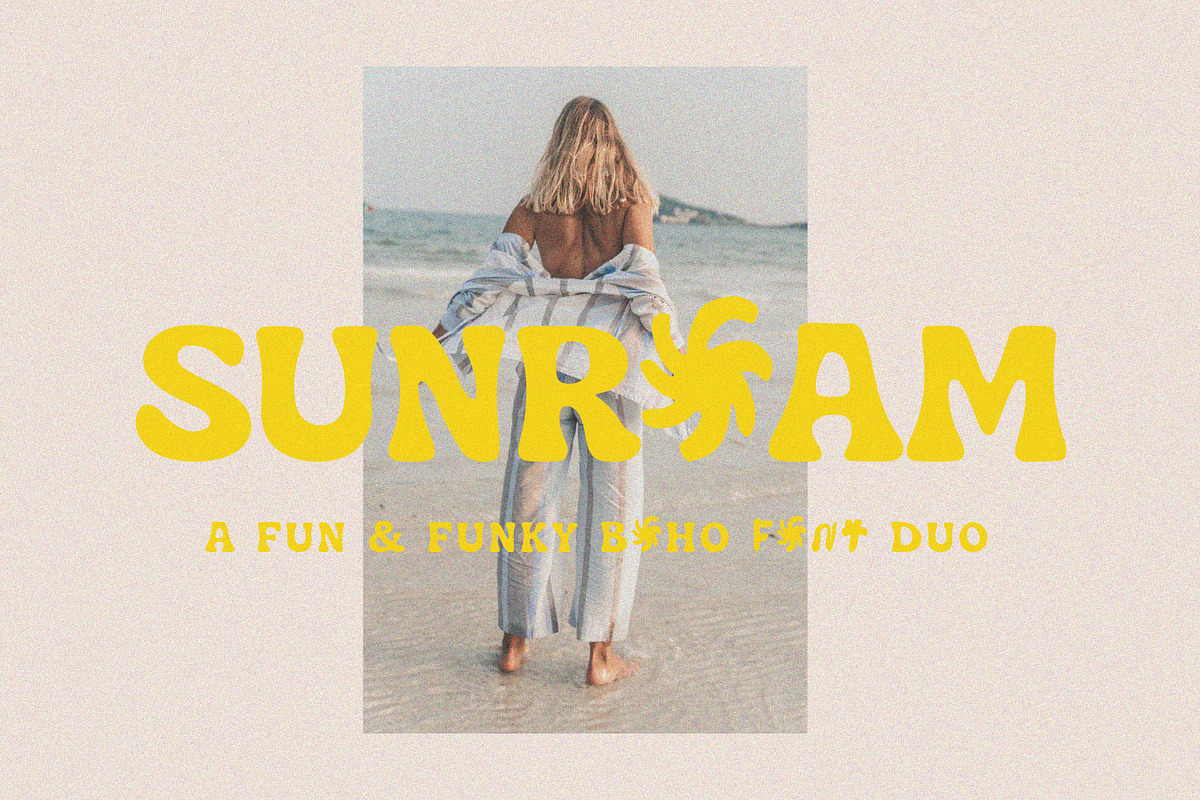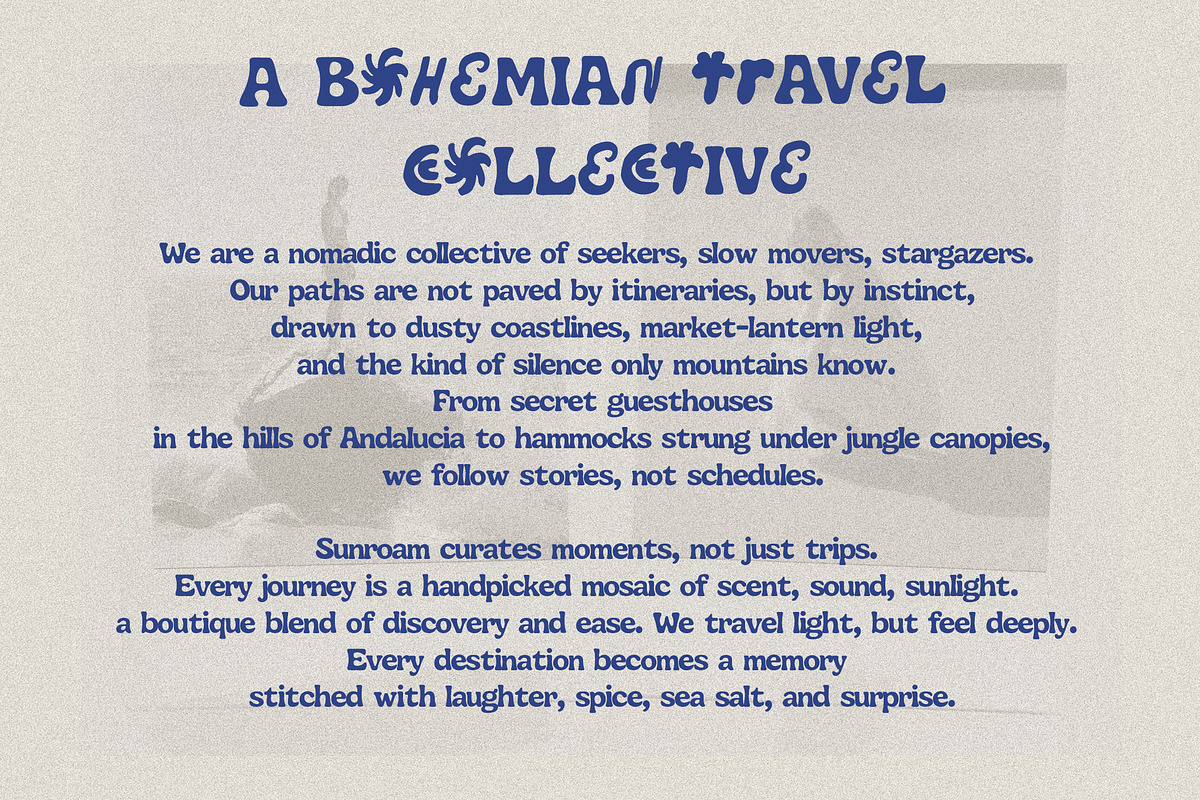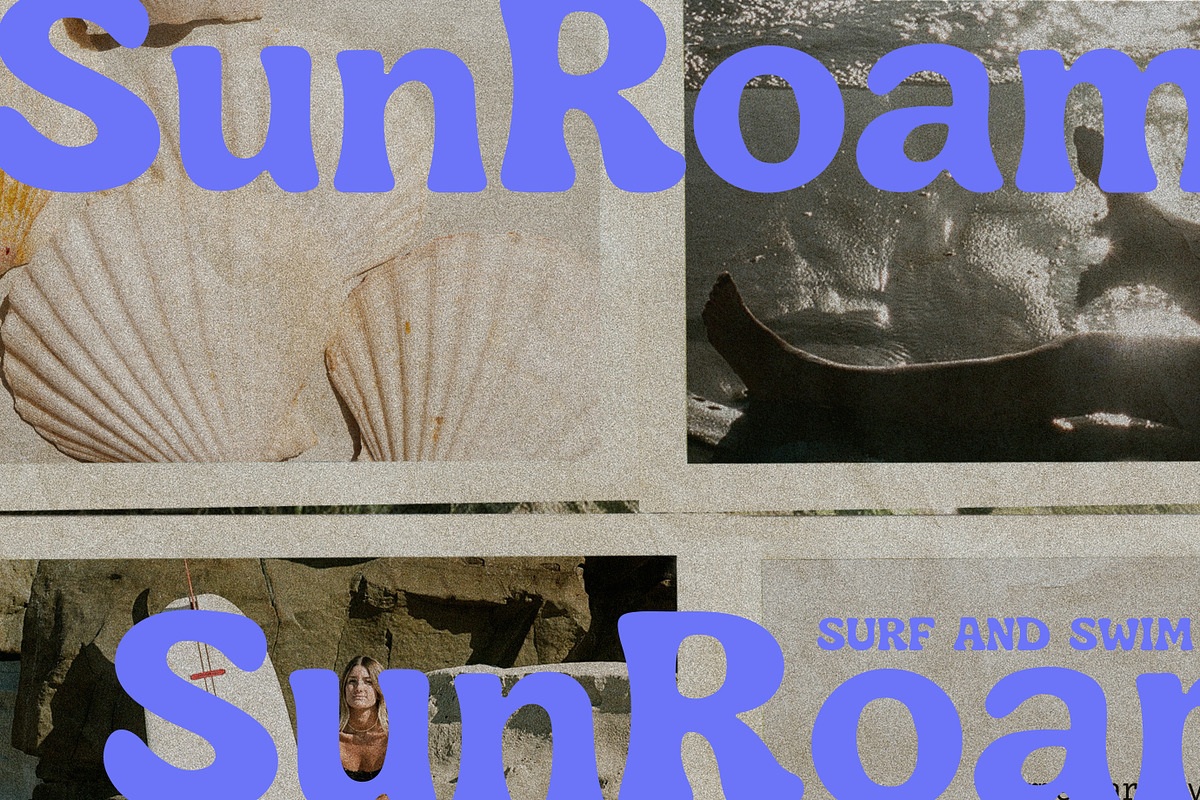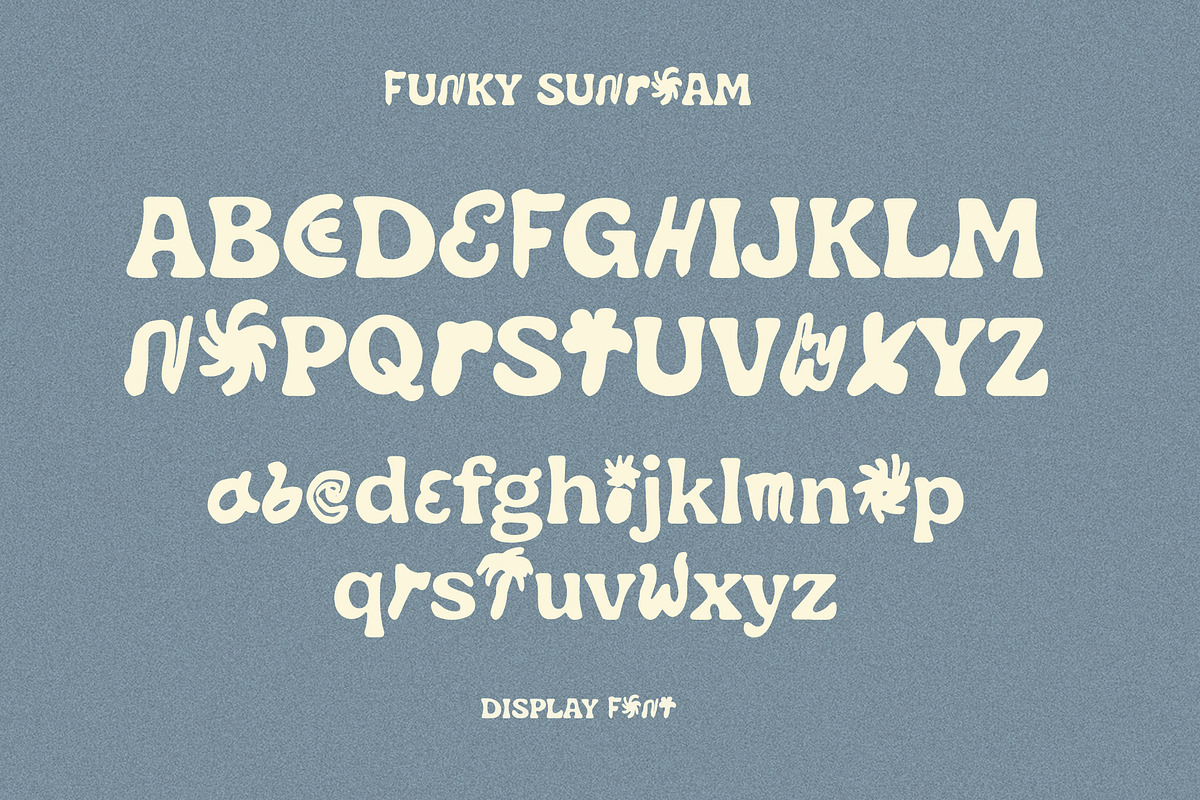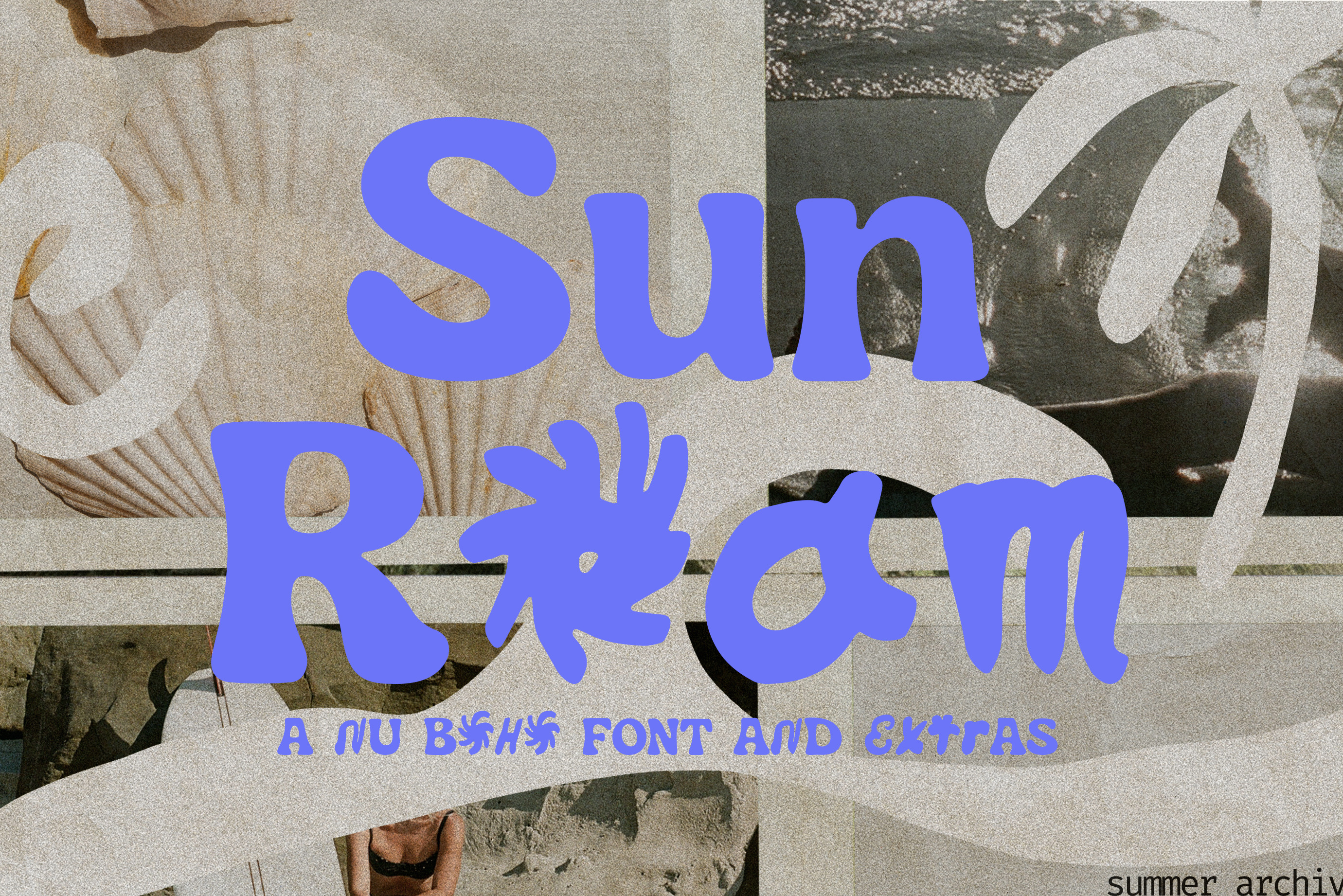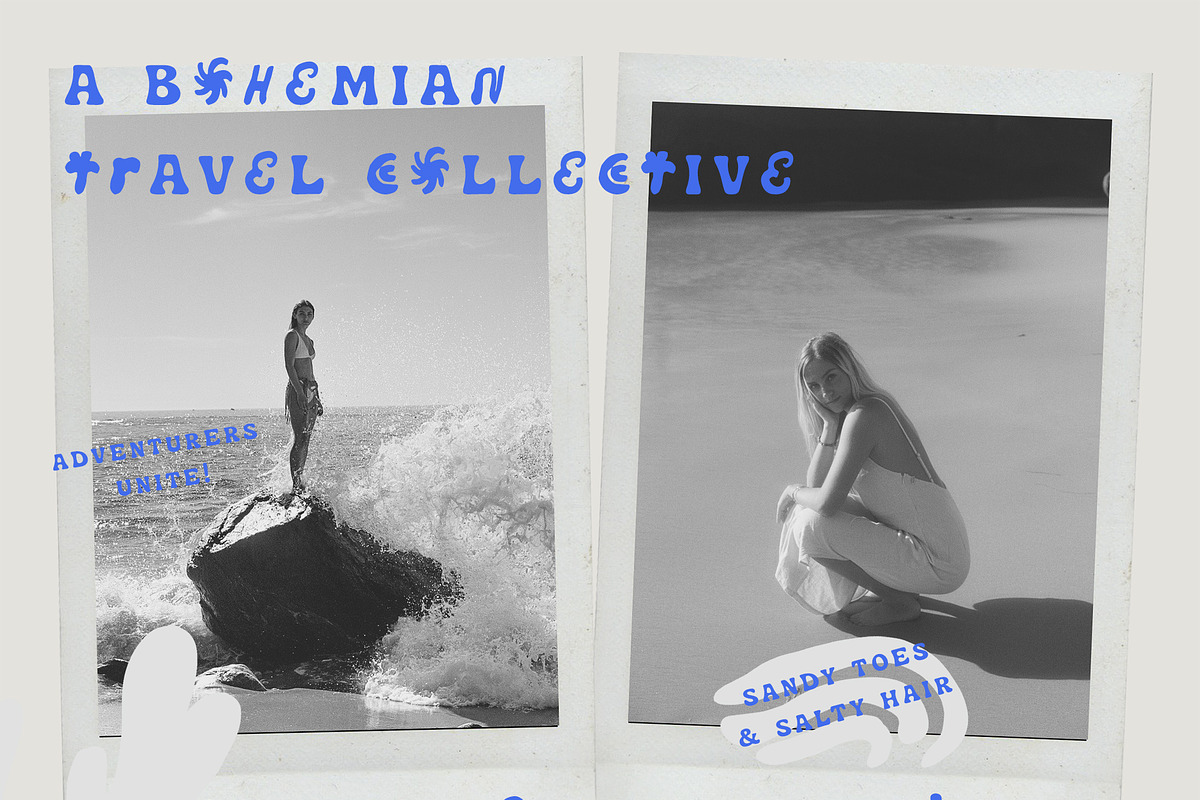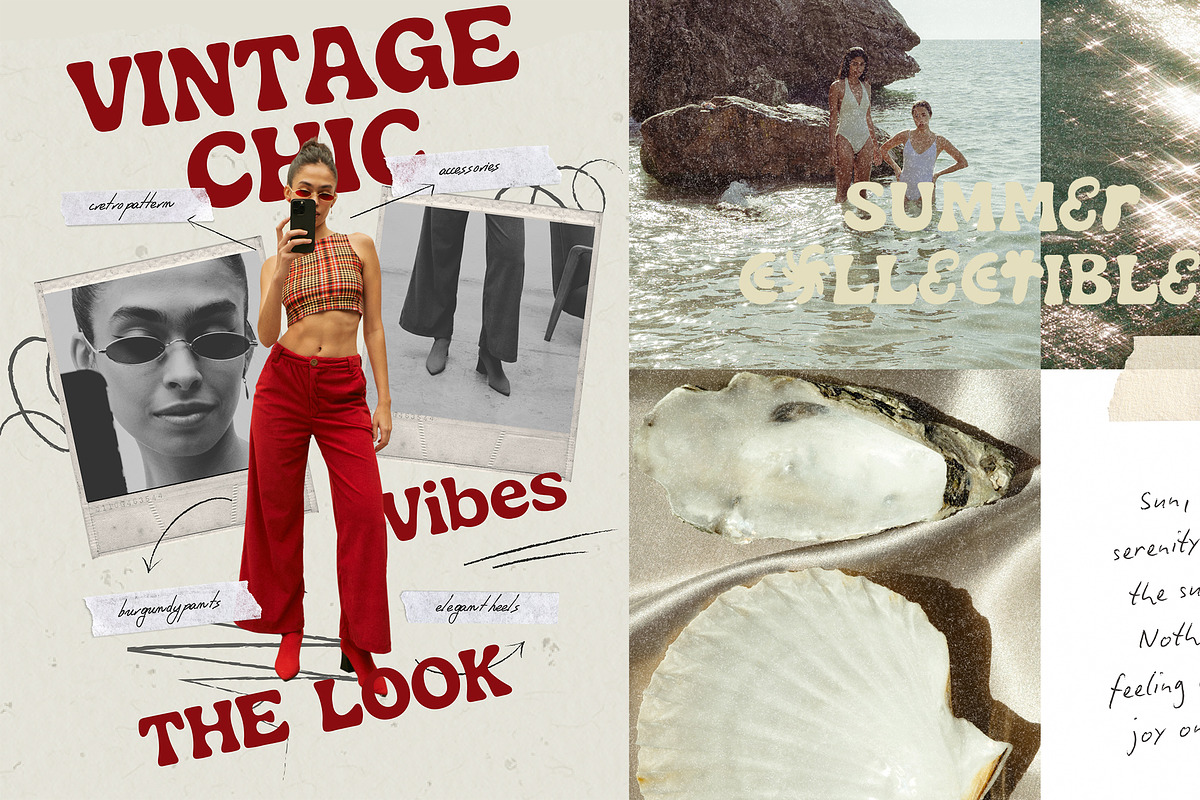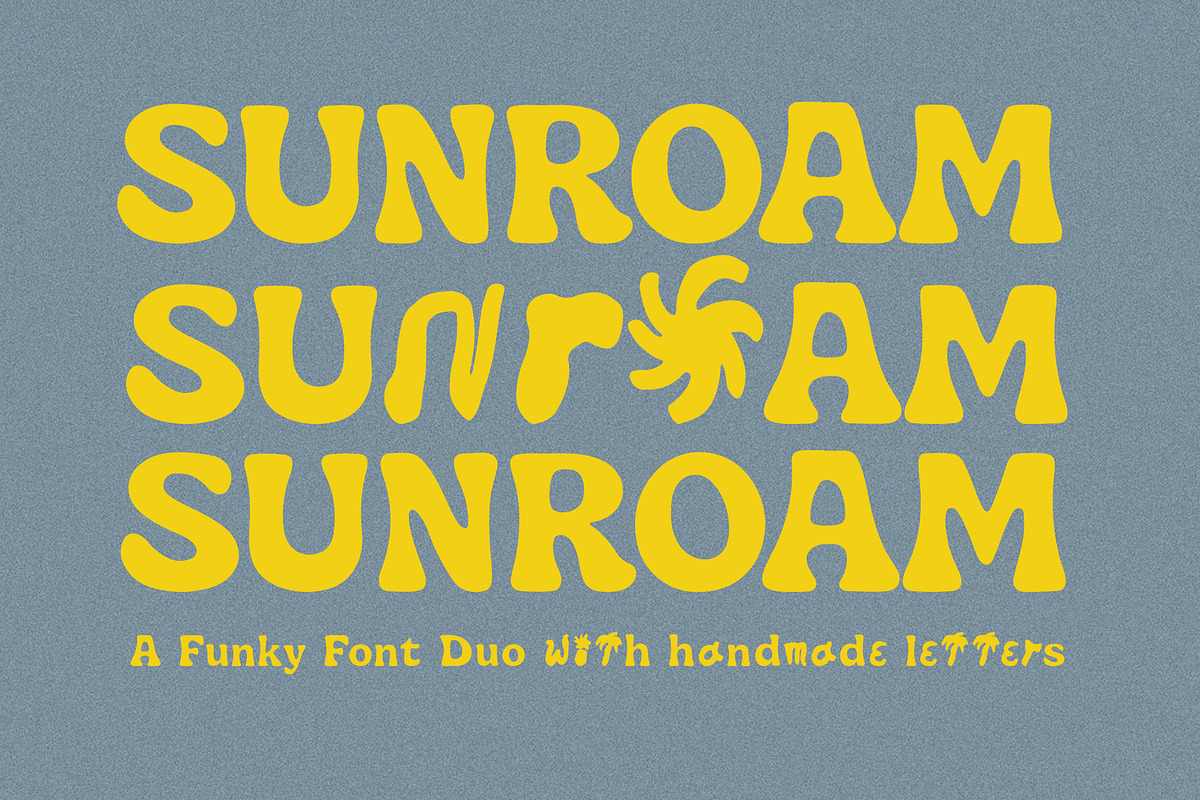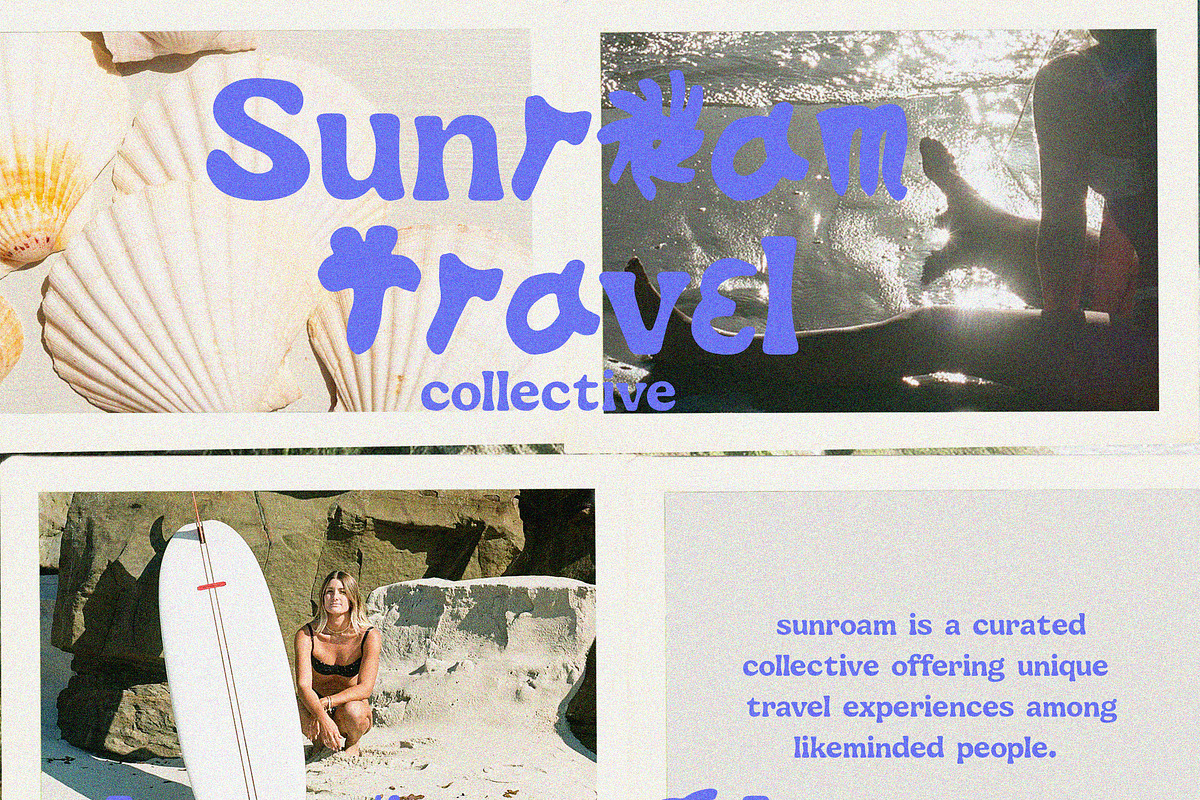
Sunroam Bold Retro Symbols Font Duo
Meet Sunroam — a bold, sun-drenched typeface made for dreamers, drifters, and design rebels. Inspired by retro surf culture, vintage road signs, and the untamed spirit of the coast, this font duo was born to roam.
Two lovely fonts are included to sprinkle that extra charm onto your brands, packaging and designs: Sunroam Regular is a bold, retro sans with clean edges. Funky Sunroam is the sibling. Letters dance with boho-inspired symbols and unexpected twists. Experience the wild, unruly and adventurous with this dynamic duo!